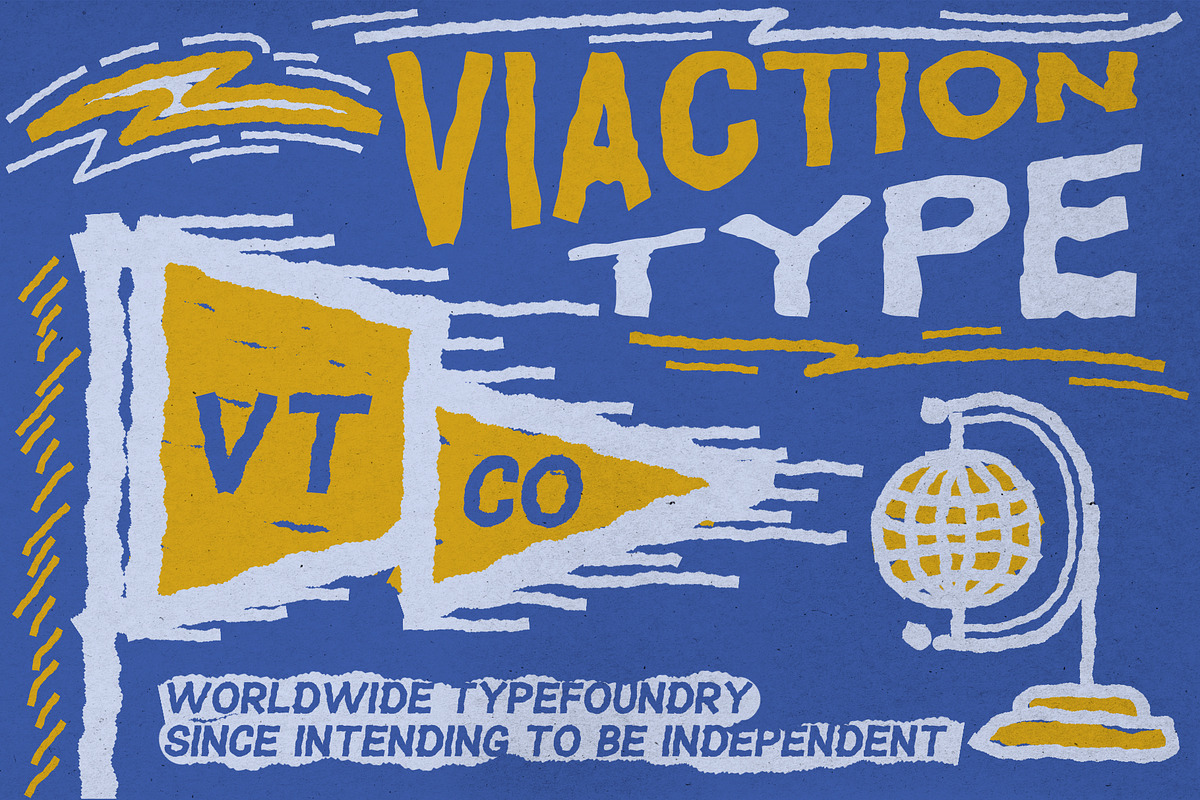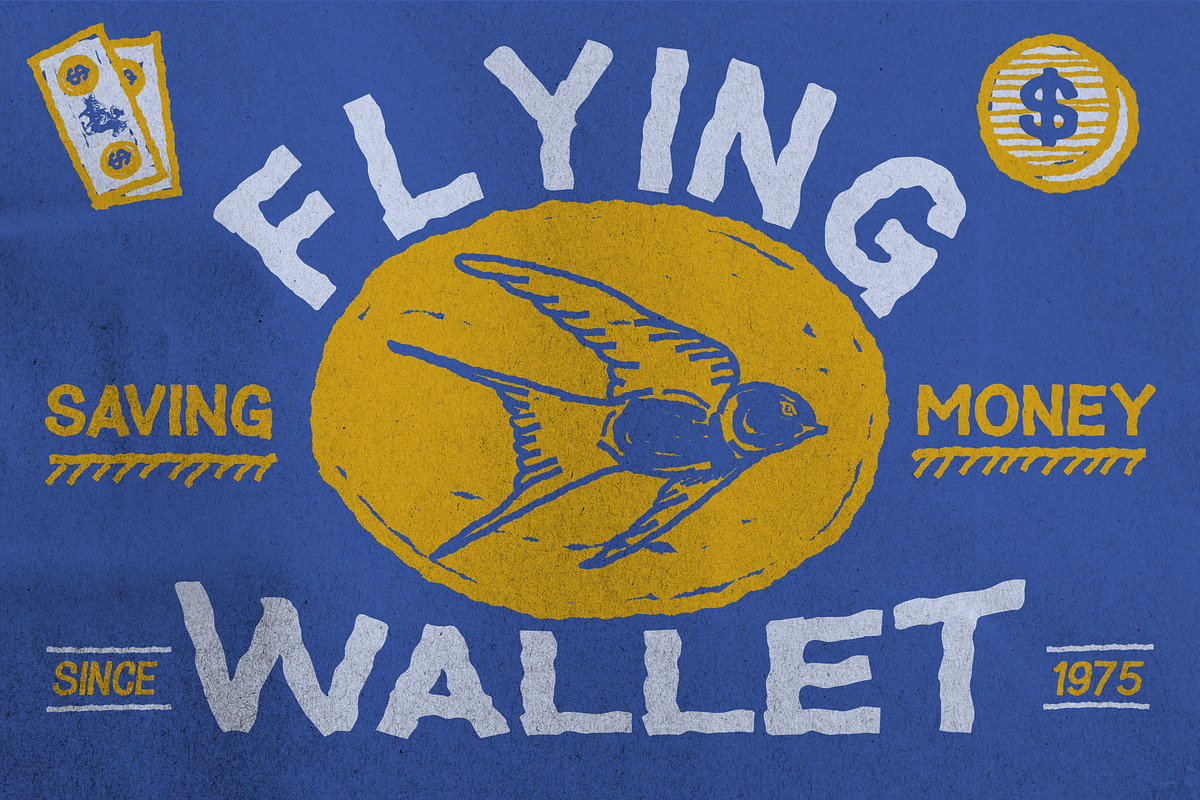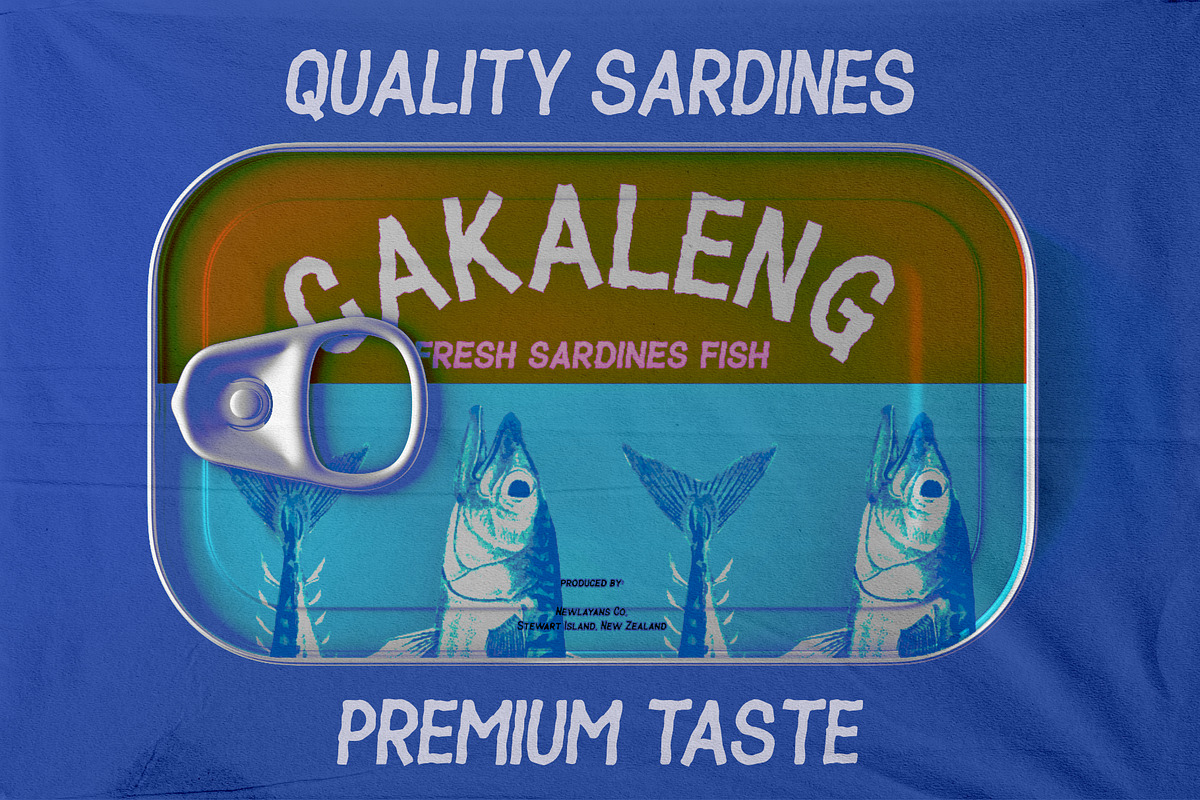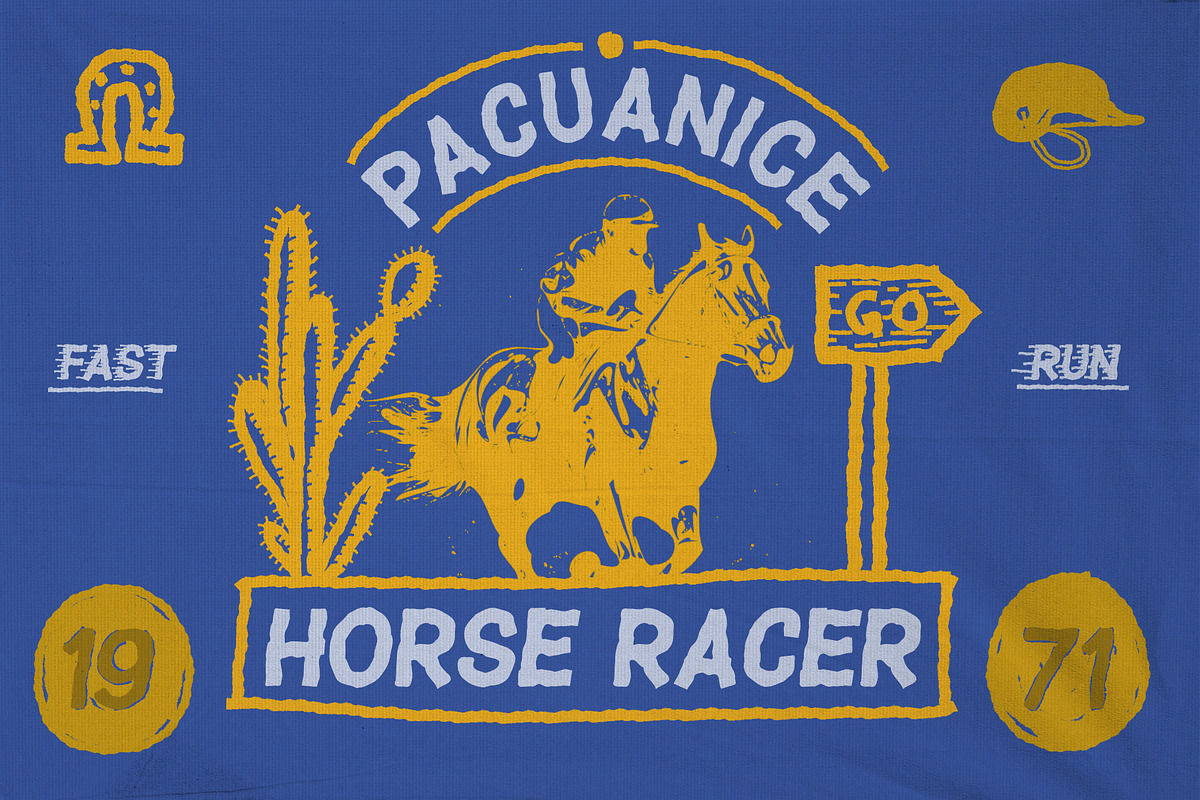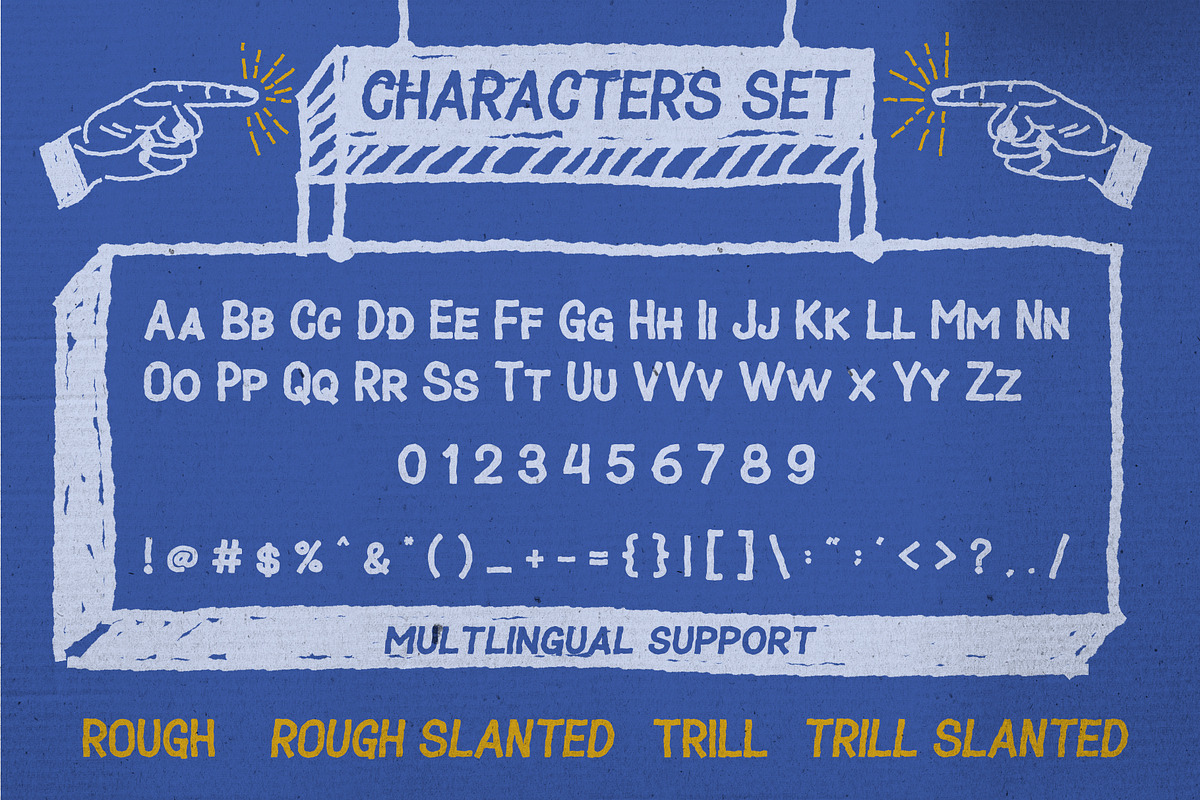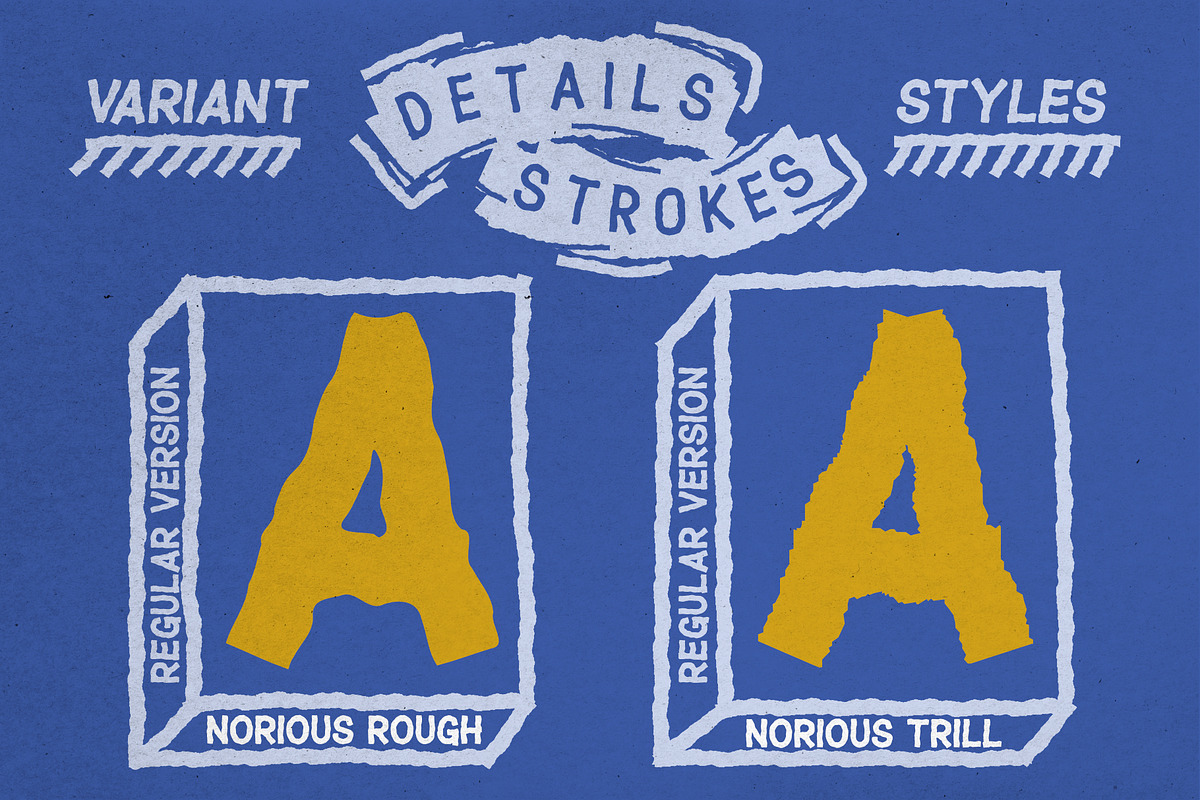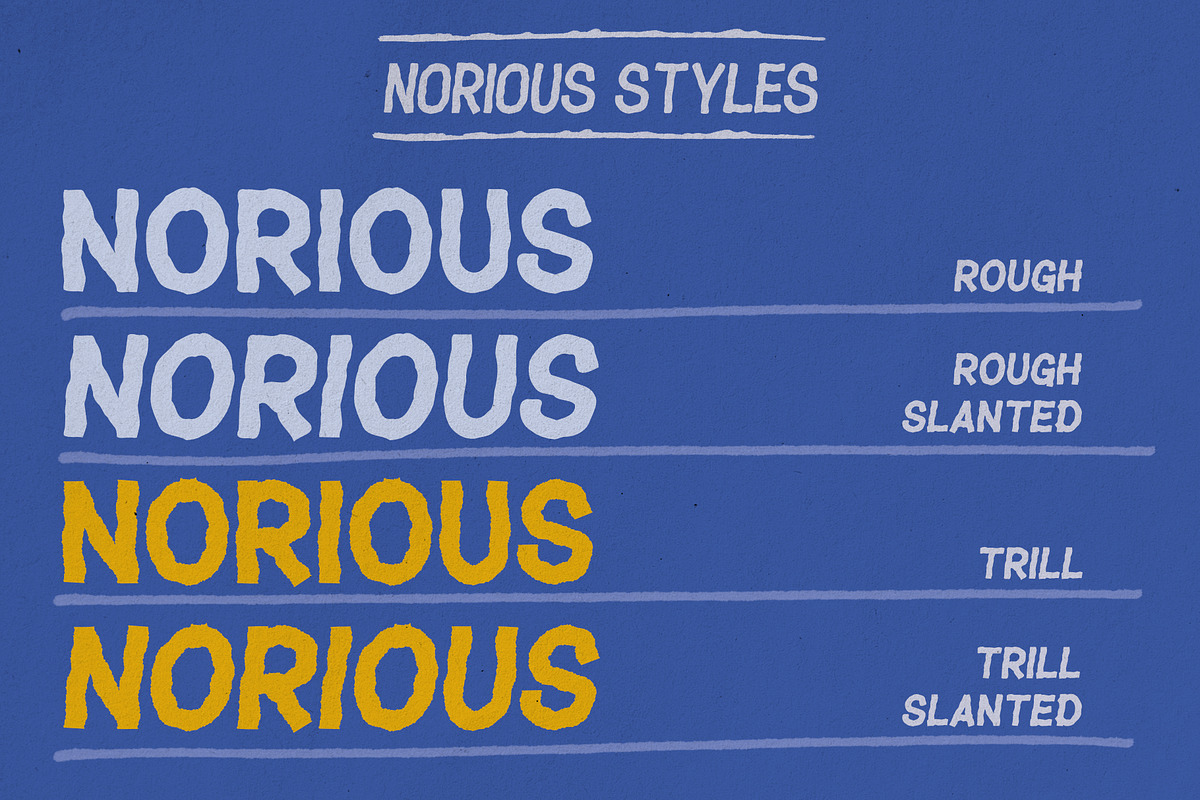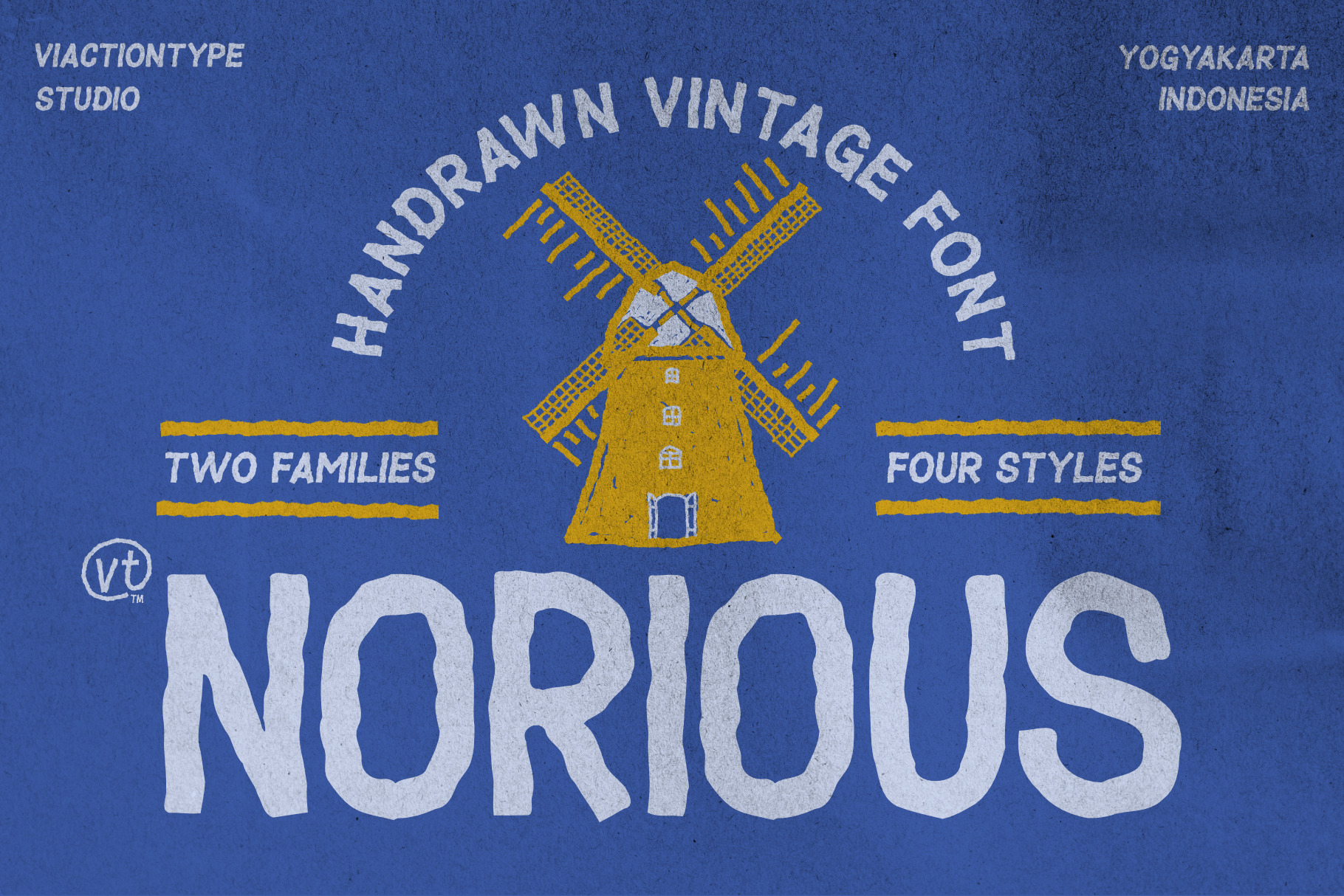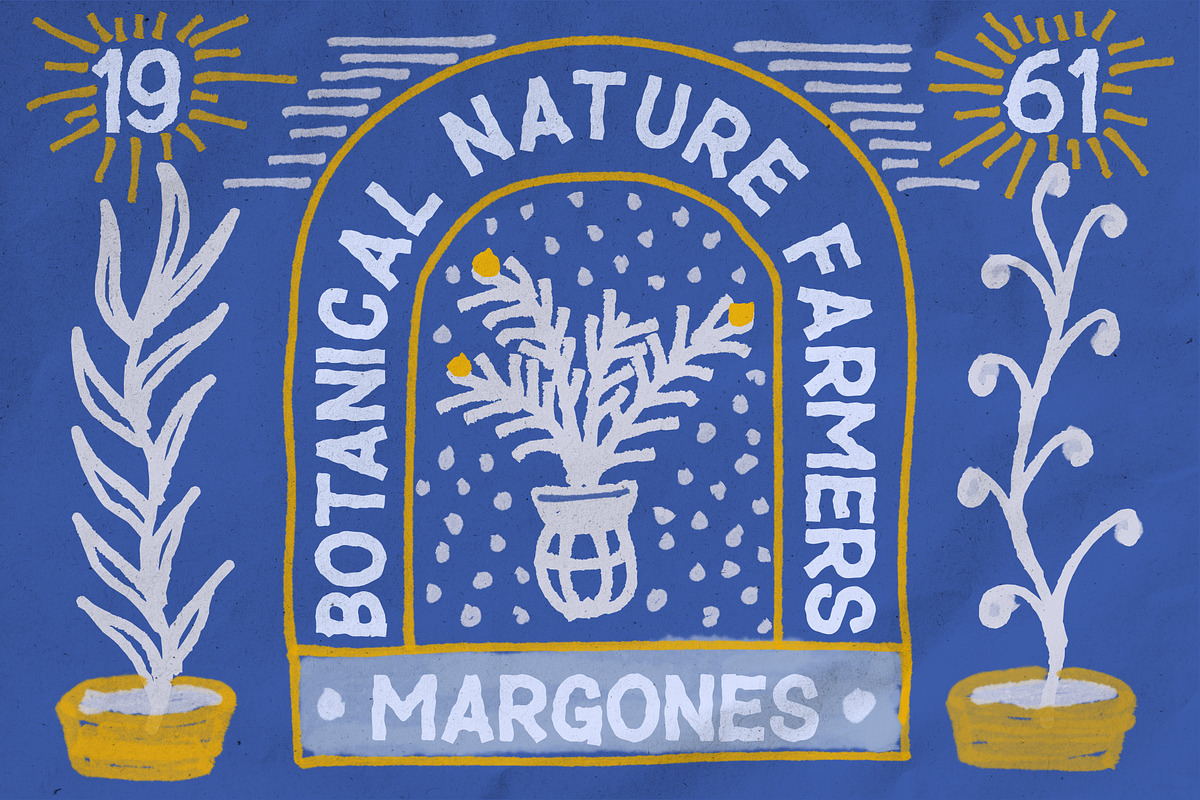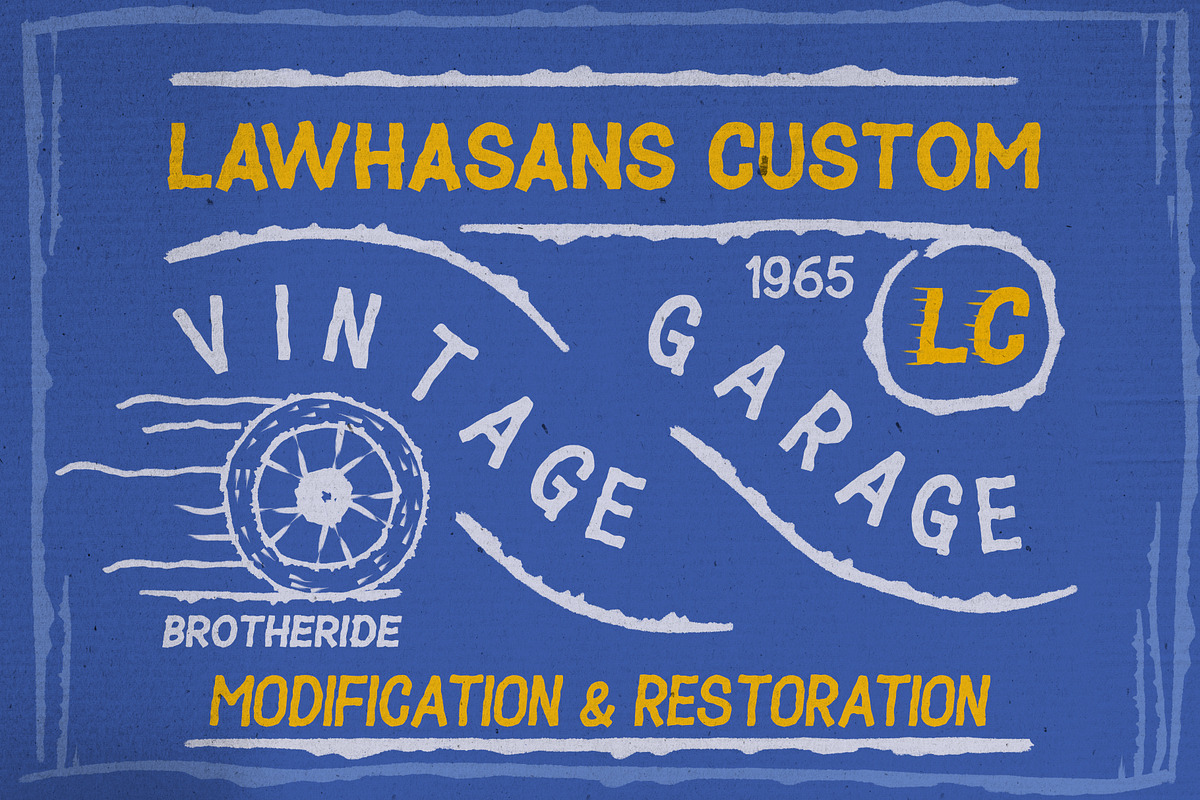
VT NORIOUS - Handrawn Vintage Font
Norious is a bold, vintage-inspired typeface that brings a raw, hand-drawn aesthetic to your design projects. Crafted with rough, sketchy strokes and a rugged charm, Norious captures the essence of handcrafted typography with its unique, organic feel. Perfect for projects that need a touch of retro, rebellious flair, Norious is ideal for logos, posters, branding, and more.
Available in two distinct families—Norious Rough and Norious Trill—and four dynamic styles, Norious offers the versatility you need for any design. The collection includes:
- Norious Rough: A bold, gritty style with an authentic hand-drawn appearance.
- Norious Rough Slanted: A slanted version of the Rough style, adding a sense of movement and energy.
- Norious Trill: A smoother, more refined version of the Rough, while still maintaining the vintage charm.
- Norious Trill Slanted: The slanted version of Trill, perfect for dynamic designs with a sense of motion.
Whether you’re designing a retro logo, a distressed poster, or a modern vintage brand identity, Norious brings the perfect combination of ruggedness and style. With its unique blend of sketchy textures and vintage appeal, this font will elevate your design to new creative heights.
- 2 Font Families: Norious Rough and Norious Trill
- 4 Font Styles: Regular & Slanted versions for more creative flexibility
- Handcrafted Appearance: Authentic hand-sketched look with a vintage vibe
- Versatile Use: Perfect for logos, branding, posters, labels, packaging, and more.